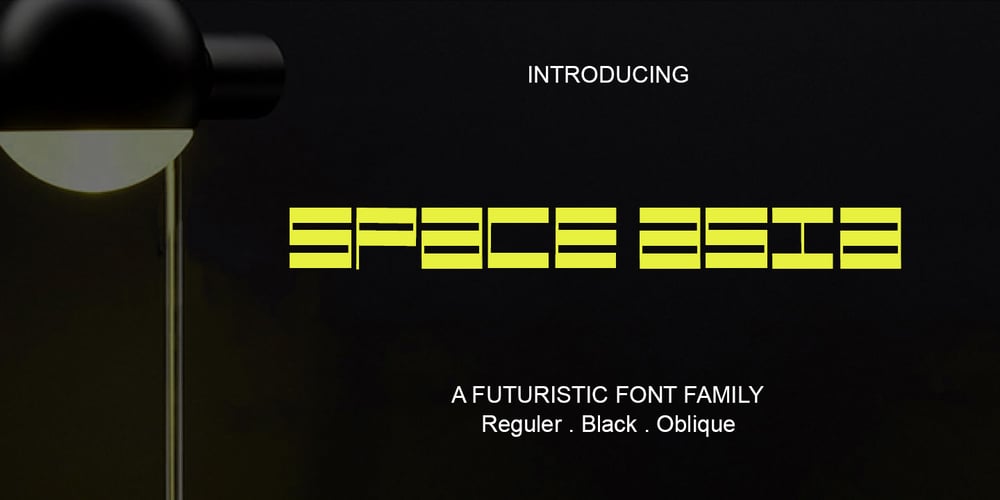
Space Asia Font Family was designed by Muammar and published by Scoothtype. Space Asia contains 4 styles and family package options. SPACE ASIA was born in the modern era which was inspired by the letters found in various print and digital media. Comes with a modern and futuristic style that will rock your great design!It is suitable for you to use in logotype designs, games, posters, movies, typography, t-shirts, tickets, and other modern designs.This is a very technical typeface and is great for use in projects related to sci-fi, science, and electronic music.This tech-savvy but fun-looking font will break between technology, science, fiction, and boundary art.The alternative characters in this font were divided into several OpenType features such as Stylistic Alternates, Stylistic Sets, and Ligature. The OpenType features can be accessed by using the OpenType program such as Adobe Illustrator, Adobe Photoshop, and Adobe InDesign.